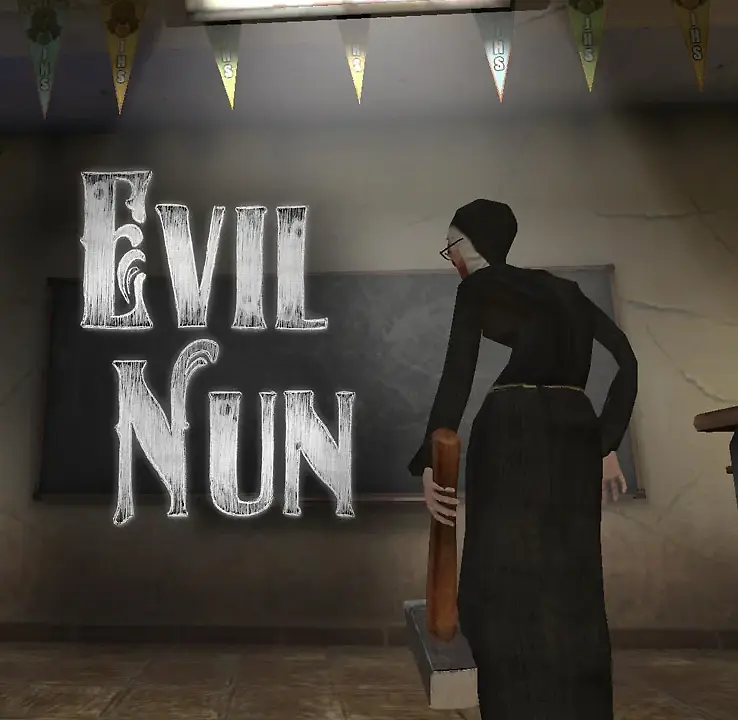
Evil Nun Font
Fonts in UseEvil Nun is a horror game developed by Keplerians Horror Games. The player is trapped inside a haunted school and must escape while avoiding the malevolent nun who roams the halls.
The font used in the game logo is LHF Signmaker 2 Fancy, designed by sign artist Dave Correll. It offers 6 font variations, including regular, inlay, and spurs to create distinctive lettering. In-game text, designed to resemble chalk markings, is set with DK Midnight, a font created by Hanoded. You can download it for free here at FontGet for personal use only.